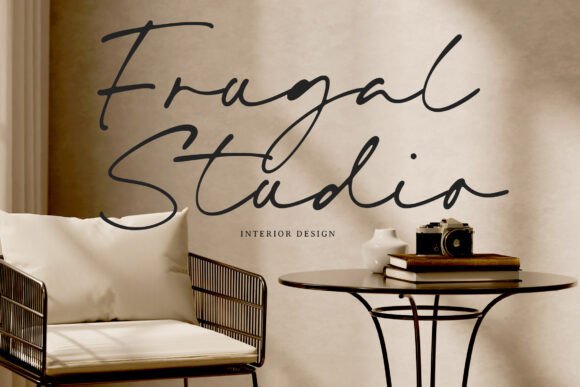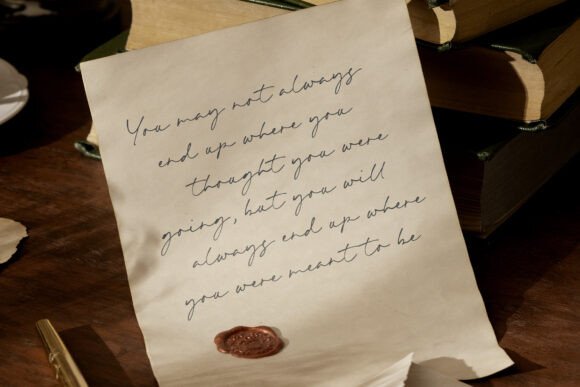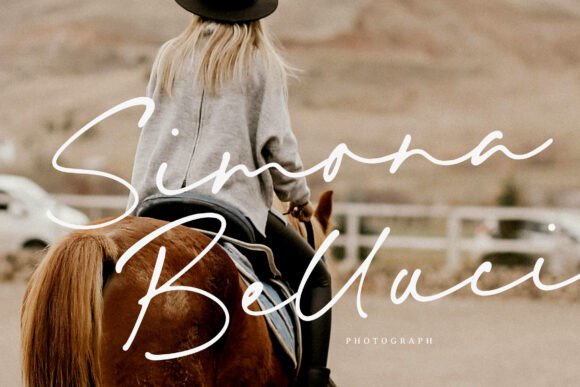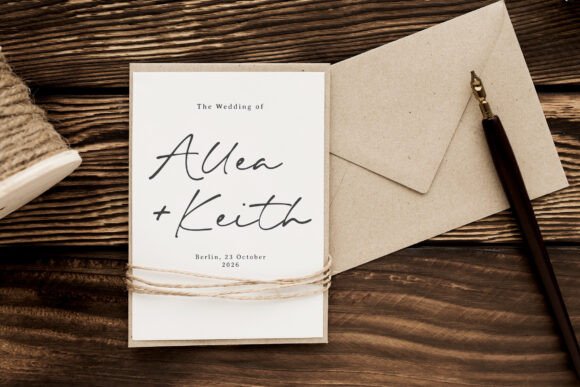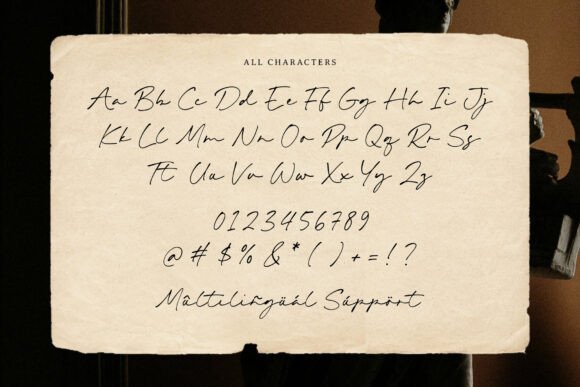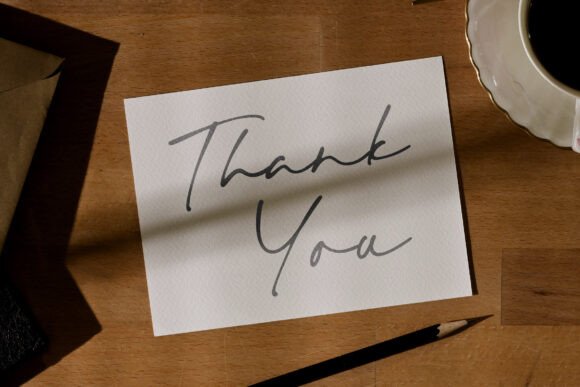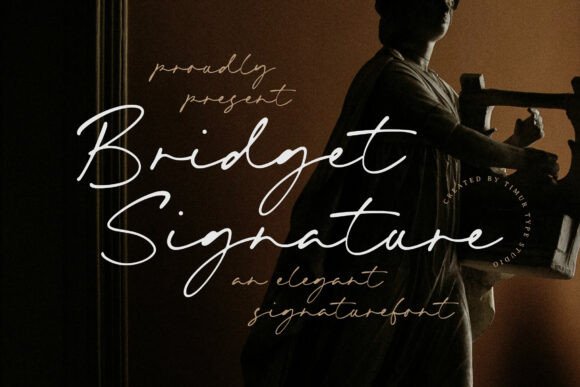
Introducing Bridget Signature Font: Elevate Your Designs with Elegance
In the world of typography, a signature font can make all the difference in creating a lasting impression. For designers and crafters looking to add a touch of luxury and charm to their work, Bridget Signature Font is an excellent choice. This elegant script font is designed to mimic the fluidity of natural handwriting, making it perfect for logos, branding, invitations, and a wide range of design applications.
The Characteristics of Bridget Signature Font
Bridget Signature Font boasts smooth curves, delicate strokes, and a sophisticated flair that sets it apart from other script fonts. Its elegant and stylish design makes it an ideal choice for designers who want to create a sense of refinement and poise in their work. Whether you’re designing a logo, creating a brand identity, or crafting an invitation, Bridget Signature Font is sure to impress.
Key Features of Bridget Signature Font
- Elegant Script Design: Bridget Signature Font features a beautiful script design that mimics the fluidity of natural handwriting.
- Smooth Curves and Delicate Strokes: The font’s smooth curves and delicate strokes give it a sophisticated and refined look.
- Perfect for Luxury and Charm: Bridget Signature Font is ideal for designs that require a touch of luxury and charm, such as logos, branding, and invitations.
- High-Quality Typography: The font is designed with high-quality typography in mind, ensuring that it looks great in any design application.
Use Cases for Bridget Signature Font
Bridget Signature Font is a versatile font that can be used in a variety of design applications. Here are some use cases where this font truly shines:
- Logos and Branding: Create a lasting impression with a custom logo or brand identity that features Bridget Signature Font.
- Invitations and Events: Add a touch of elegance and sophistication to your invitations, wedding stationery, and event designs.
- Packaging and Product Design: Use Bridget Signature Font to create eye-catching packaging and product designs that stand out on store shelves.
- Advertising and Marketing: Elevate your advertising and marketing materials with a font that exudes luxury and charm.
Why Choose Bridget Signature Font?
With so many script fonts available, why choose Bridget Signature Font? Here are just a few reasons why designers and crafters love this font:
- Unique and Elegant Design: Bridget Signature Font features a unique and elegant design that sets it apart from other script fonts.
- Highly Versatile: The font can be used in a wide range of design applications, from logos and branding to invitations and packaging.
- Easy to Read: Despite its elegant design, Bridget Signature Font is easy to read, making it perfect for body text and headlines.
Tips for Using Bridget Signature Font
To get the most out of Bridget Signature Font, here are a few tips to keep in mind:
- Use it Sparingly: While Bridget Signature Font is beautiful, it can be overwhelming if used too much. Use it sparingly to create a lasting impression.
- Pair it with a Sans-Serif Font: Pair Bridget Signature Font with a sans-serif font to create a beautiful contrast between elegant script and clean, modern typography.
- Experiment with Colors and Textures: Don’t be afraid to experiment with different colors and textures to add depth and interest to your designs.
In conclusion, Bridget Signature Font is an elegant and stylish script font that is perfect for designers and crafters looking to add a touch of luxury and charm to their work. With its smooth curves, delicate strokes, and sophisticated flair, it’s ideal for logos, branding, invitations, and a wide range of design applications. Whether you’re a seasoned designer or just starting out, Bridget Signature Font is sure to elevate your designs and leave a lasting impression.